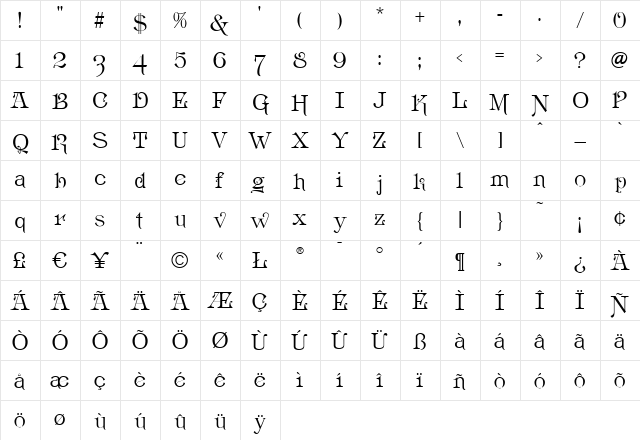
HattanAntique Regular
Design Context for HattanAntique Typeface
HattanAntique has the warm character of retro typography — evoking diners, record sleeves, and the golden age of print advertising.
Ideal for diner signage, record shop branding, 70s/80s-themed projects, and heritage product labels.
Font Pairing: Combine HattanAntique with a simple slab or neutral sans — period-accurate companions reinforce the vintage feel without competing for attention.
Pro Tip: Lean into HattanAntique's period character by pairing it with aged paper textures, muted colour palettes, and vintage illustration styles.